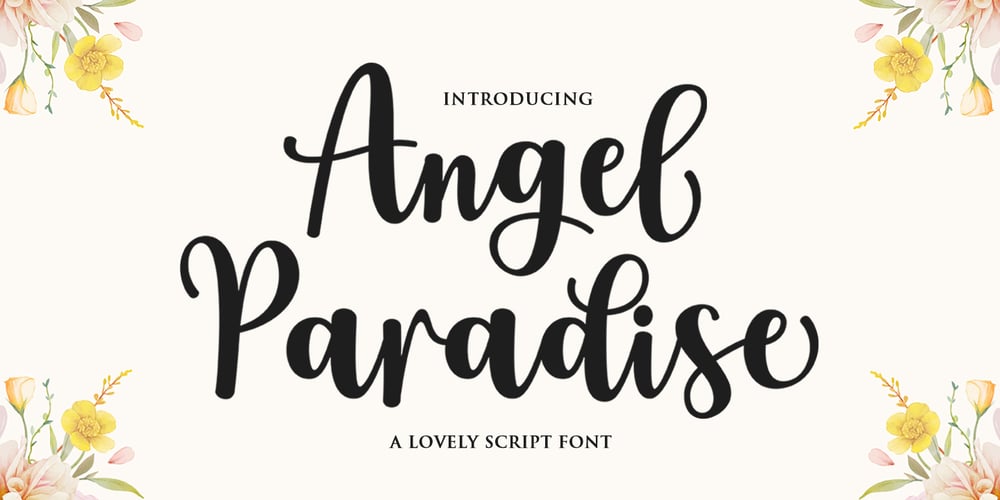
Angel Paradise Font Family was designed by Muammar Kadafi and published by Attract Studio. Angel Paradise contains 1 styles and family package options. -INTRODUCING-Angel Paradise Script is a modern calligraphy font. Here you will get a beautiful script font. This font is available some modern swirl that can make your work look elegant, sweet and perfect. Can be used for various purposes.such as headings, signature, logos, wedding invitation, t-shirt, letterhead, signage, lable, news, posters, badges etc.Angel Paradise Script features OpenType stylistic alternates, ligatures and International support for most Western Languages is included. To enable the OpenType Stylistic alternates, you need a program that supports OpenType features such as Adobe Illustrator CS, Adobe Indesign & CorelDraw X6-X7, Microsoft Word 2010 or later versions.How to access all alternative characters using Adobe Illustrator:https://www.youtube.com/watch?v=XzwjMkbB-wQAngel Paradise Script is coded with PUA Unicode, which allows full access to all the extra characters without having special designing software. Mac users can use Font Book , and Windows users can use Character Map to view and copy any of the extra characters to paste into your favourite text editor/app.How to access all alternative characters, using Windows Character Map with Photoshop:https://www.youtube.com/watch?v=Go9vacoYmBwIf you have any question, don’t hesitate to contact me.Thanks so much for looking and Enjoy it!